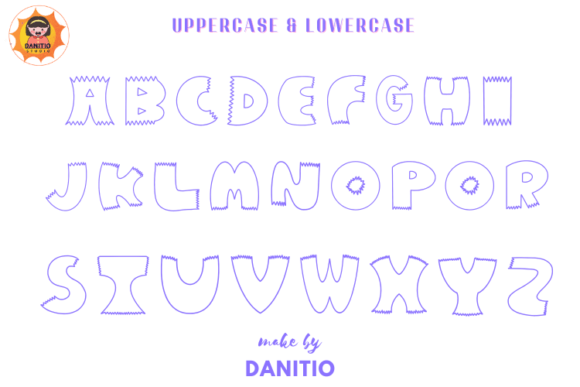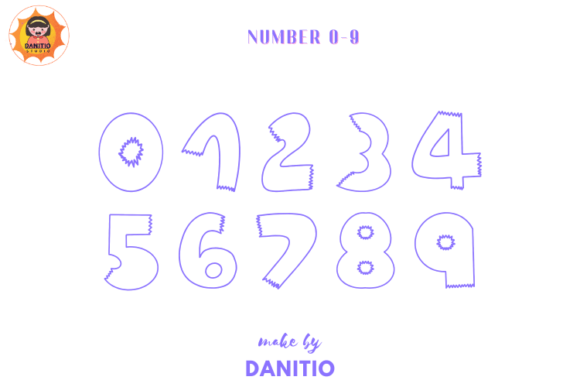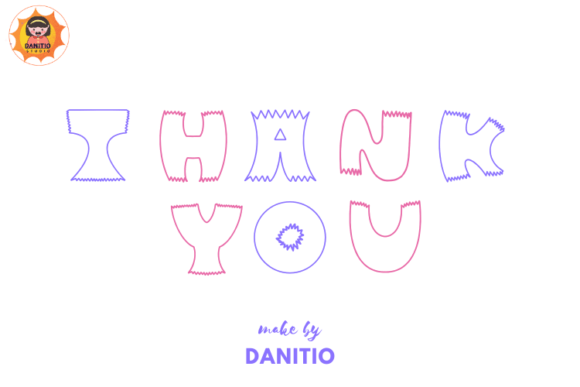
Introducing Enjoy Font: The Cute and Fun Display Font to Elevate Your Creations
Are you tired of using the same old fonts for your design projects? Look no further! Enjoy Font is here to add a touch of fun and cuteness to your creations. This display font is perfect for designers and crafters who want to make their projects stand out from the crowd. In this article, we’ll dive into the features and benefits of Enjoy Font, and explore how you can use it to take your designs to the next level.
The Features of Enjoy Font
Enjoy Font is a unique and playful display font that is designed to add a personal touch to your projects. Here are some of its key features:
- Cute and Fun Design: Enjoy Font has a distinctive and adorable design that is sure to capture the attention of your audience. Its playful curves and lines make it perfect for creating eye-catching headlines, titles, and quotes.
- Highly Versatile: Enjoy Font is an incredibly versatile font that can be used for a wide range of projects, from digital designs to print materials. Whether you’re creating a logo, brochure, or social media post, Enjoy Font is the perfect choice.
- Easily Pairable: Enjoy Font can be easily paired with a large set of projects, making it a great addition to your font library. You can use it with other fonts to create a unique and cohesive look.
The Benefits of Using Enjoy Font
So, why should you use Enjoy Font for your design projects? Here are some benefits of using this amazing font:
- Adds a Personal Touch: Enjoy Font adds a personal touch to your designs, making them more relatable and engaging to your audience.
- Increases Readability: The clear and playful design of Enjoy Font makes it easy to read, even at smaller font sizes.
- Perfect for Branding: Enjoy Font is perfect for creating brand identities, such as logos, business cards, and letterheads.
- Great for Social Media: Enjoy Font is ideal for creating eye-catching social media posts, quotes, and graphics.
How to Use Enjoy Font in Your Designs
Using Enjoy Font in your designs is easy! Here are some tips to get you started:
- Use it as a Headline Font: Enjoy Font is perfect for creating attention-grabbing headlines and titles.
- Pair it with Other Fonts: Experiment with pairing Enjoy Font with other fonts to create a unique and cohesive look.
- Use it for Quotes and Captions: Enjoy Font is great for creating quotes, captions, and other text elements that need to stand out.
Tips and Tricks for Getting the Most Out of Enjoy Font
Here are some tips and tricks to help you get the most out of Enjoy Font:
- Experiment with Font Sizes: Enjoy Font looks great at a range of font sizes, from small to large.
- Play with Colors: Enjoy Font looks great in a range of colors, from bright and bold to pastel and subtle.
- Use it in Combination with Images: Enjoy Font looks great when used in combination with images and graphics.
In conclusion, Enjoy Font is a cute and fun display font that is perfect for designers and crafters who want to add a personal touch to their creations. Its highly versatile design makes it suitable for a wide range of projects, from digital designs to print materials. With its clear and playful design, Enjoy Font is sure to make your projects stand out from the crowd. So why not give it a try and see the difference it can make?